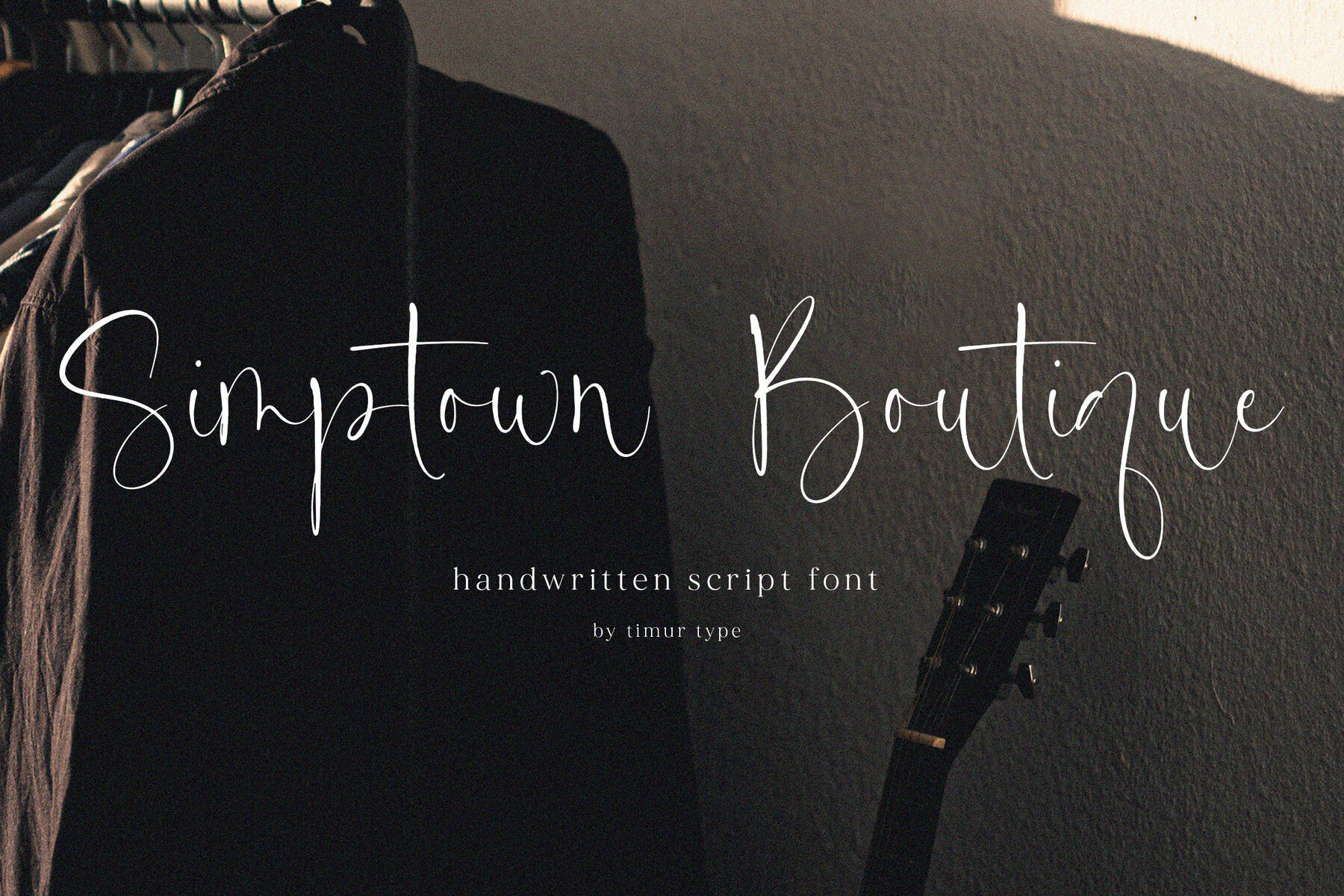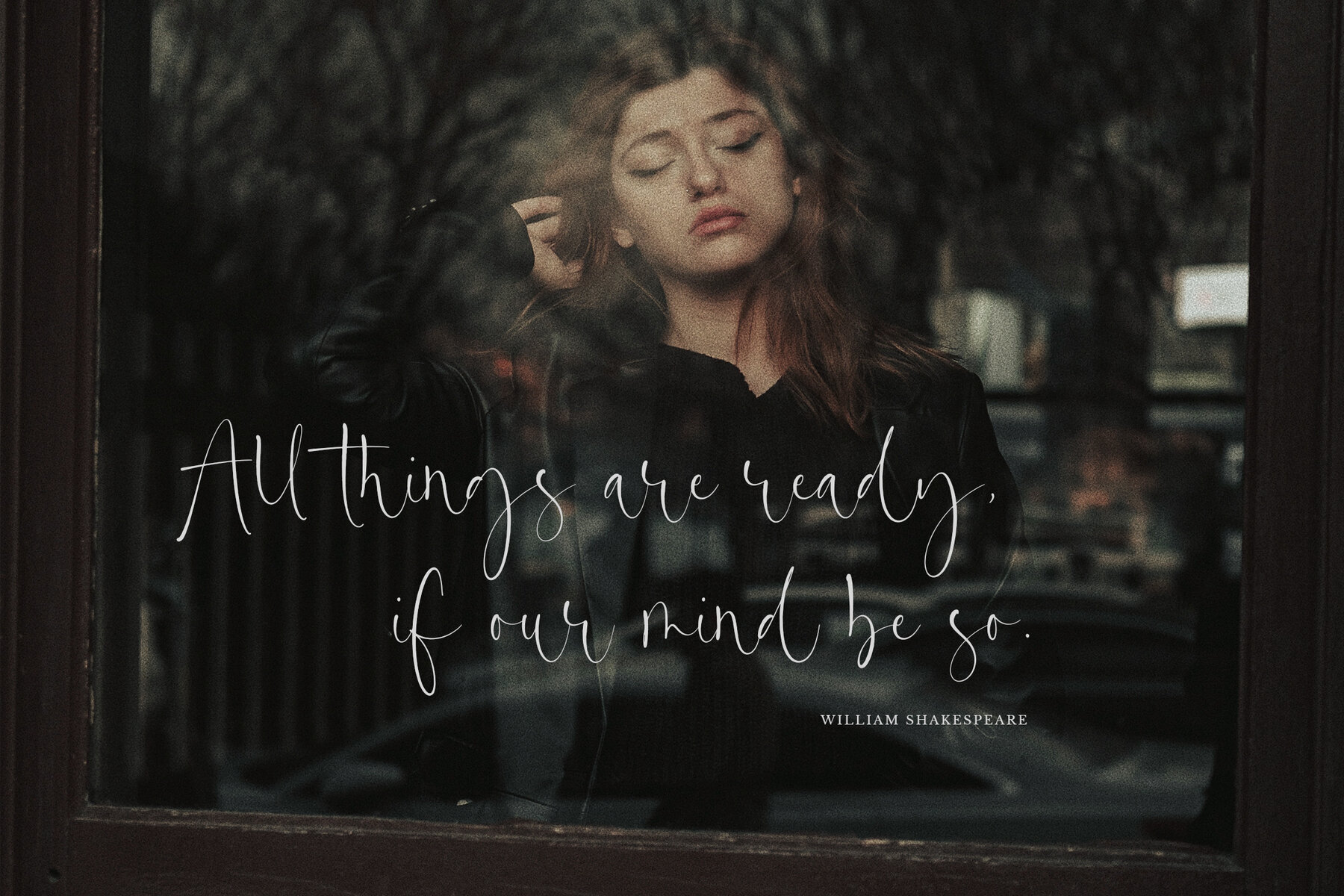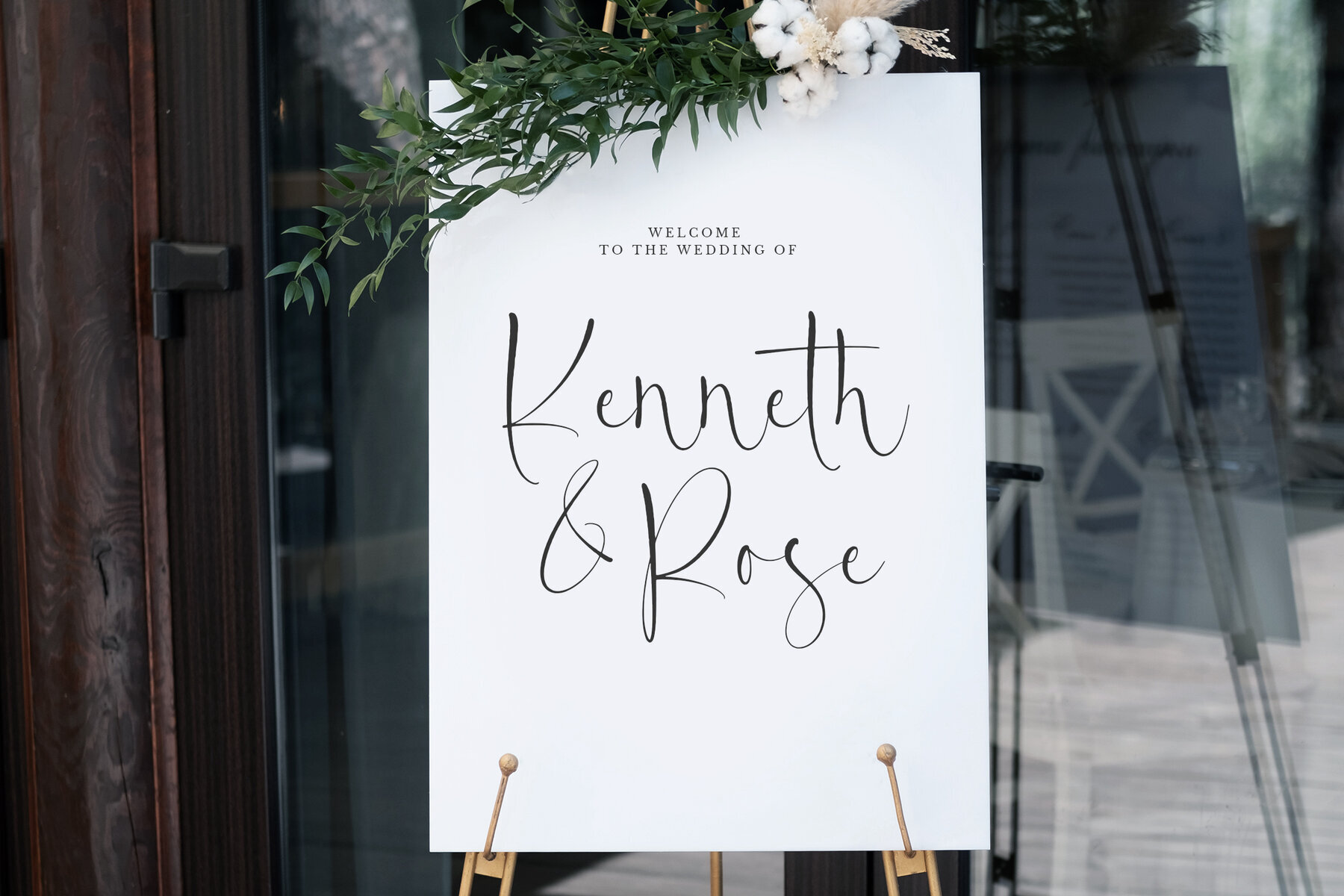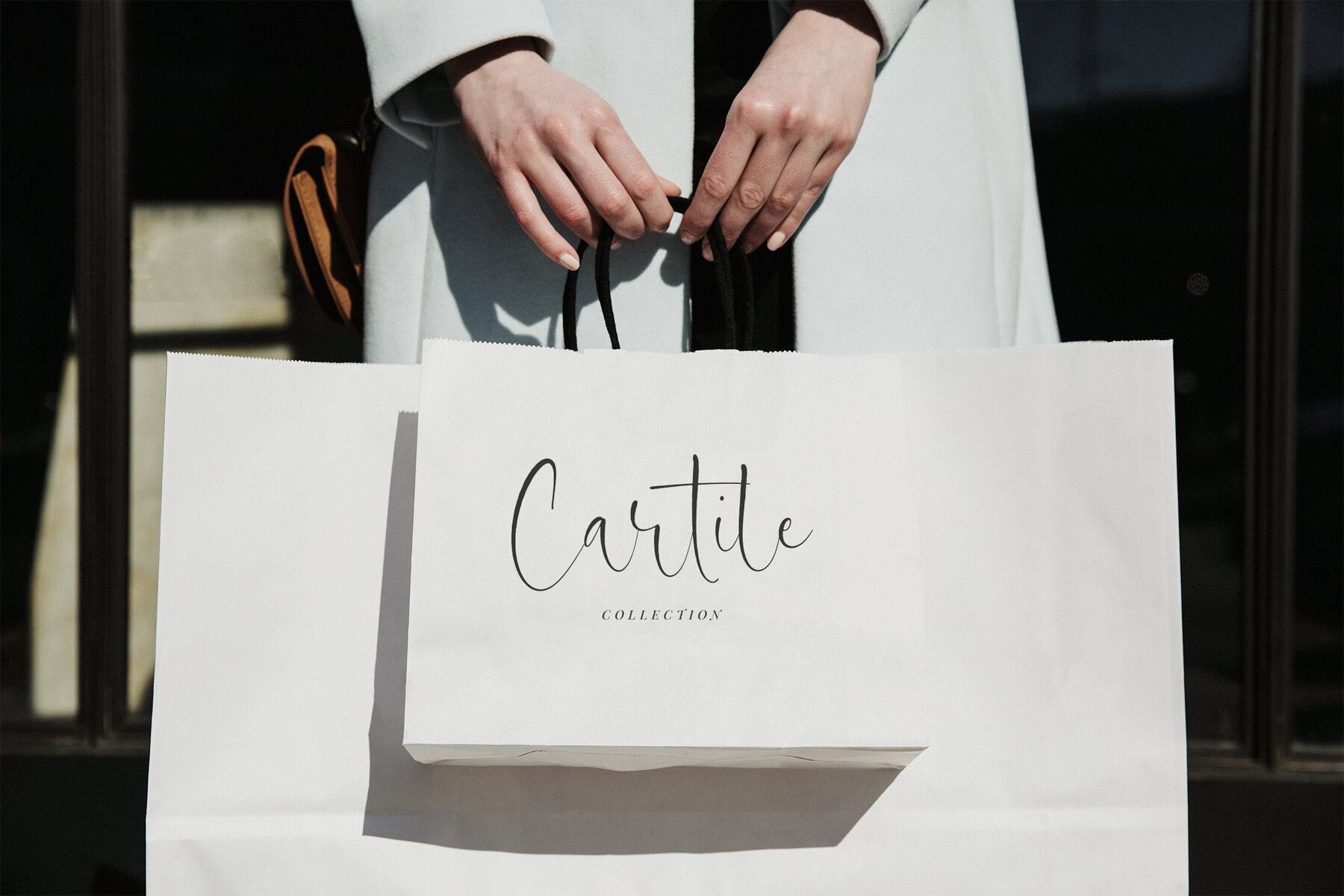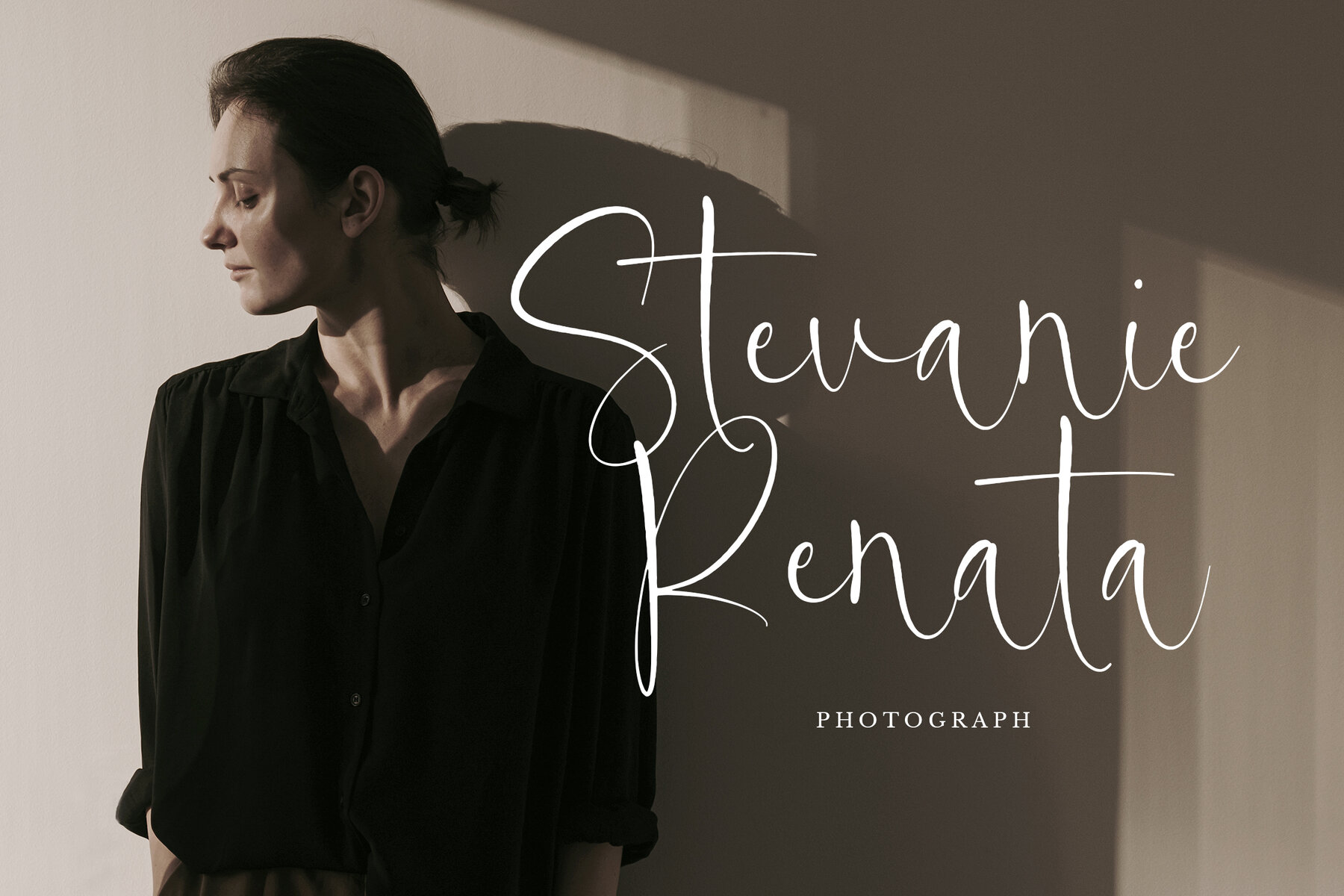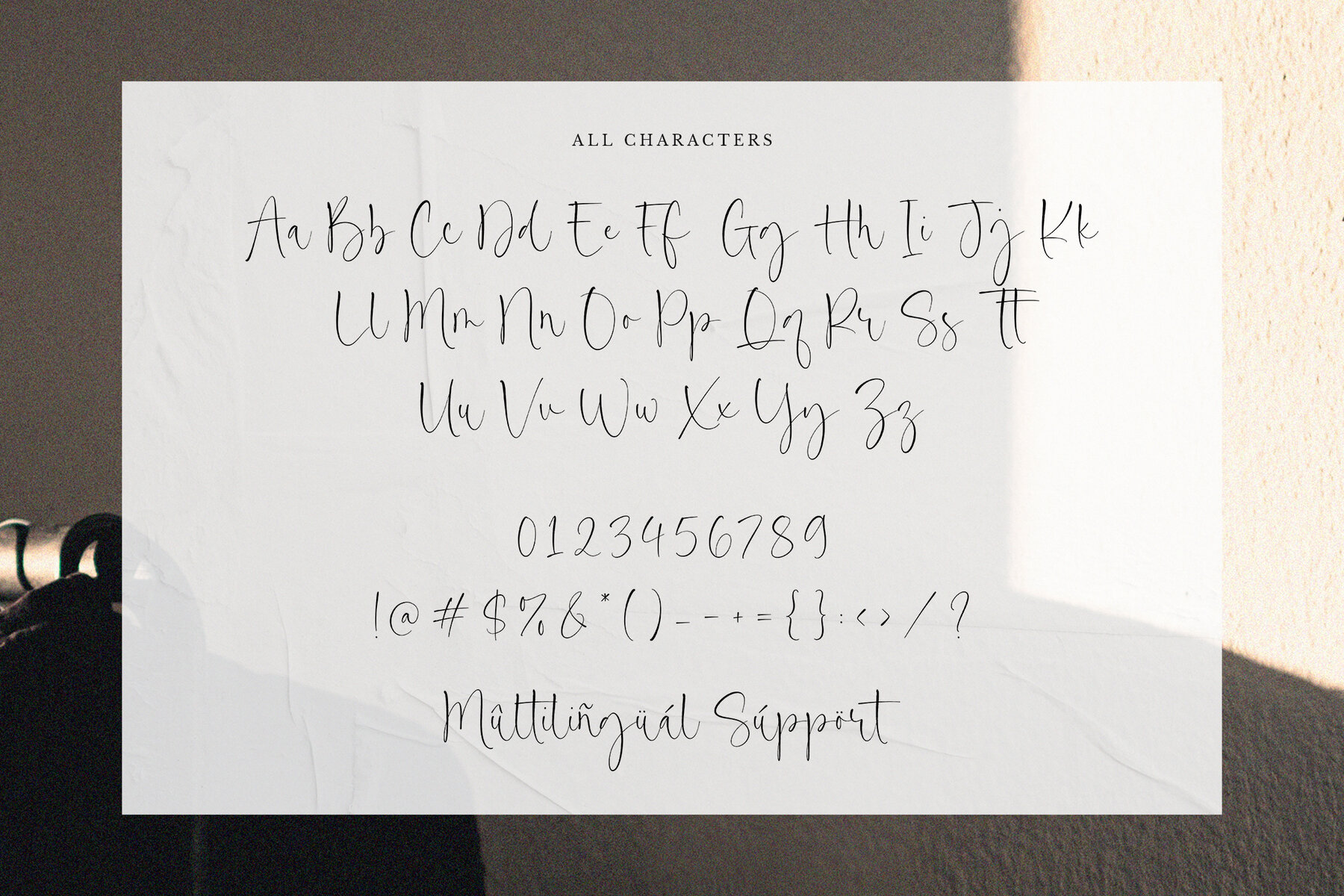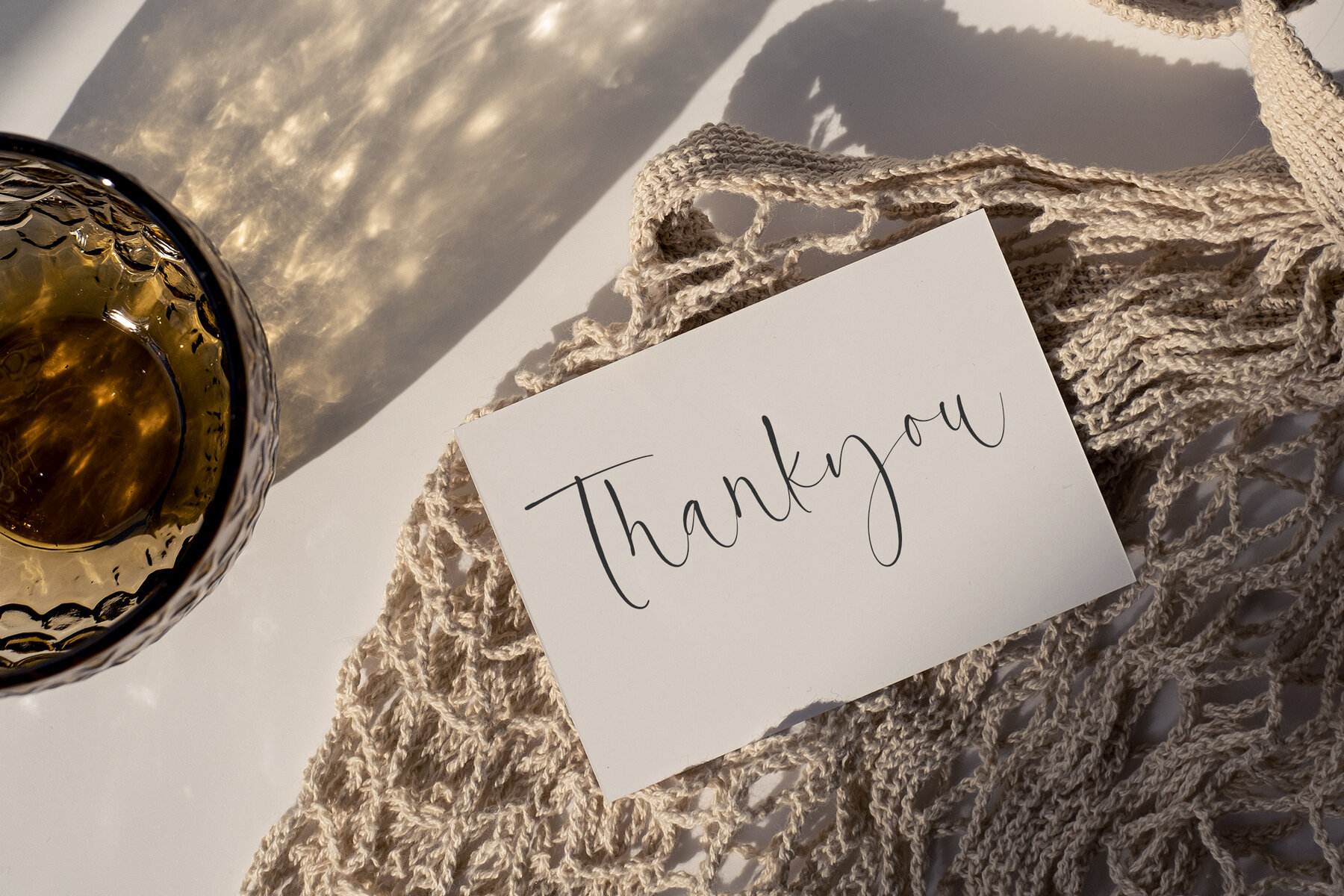
Simptown Boutique Font
Simptown Boutique
Simptown Boutique is a modern handwritten script font brimming with fresh and warm appeal. This typeface delivers a welcoming vibe that can enhance various design projects, whether you are working on product packaging, branding, magazines, social media graphics, or wedding invitations. Its versatile style is perfect for adding a personal touch and elegance to your creative endeavors.
Leverage the unique charm of Simptown Boutique to effortlessly express words in an authentic and engaging manner. Ideal for a broad range of applications, this font stands out with its delicate curves and clean lines, making your text not only readable but also visually captivating. Bring your projects to life with Simptown Boutique's inviting flair.